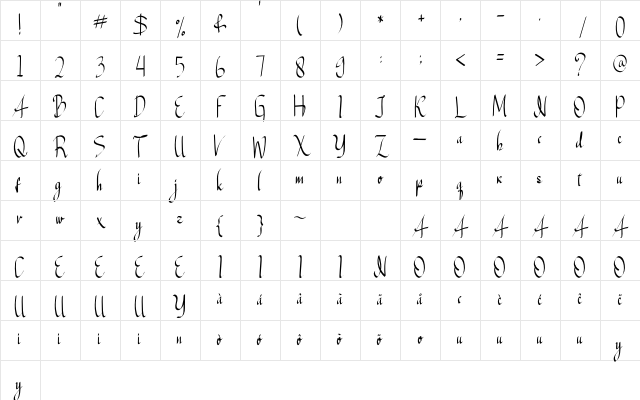
Complete The Oxcello Regular glyph index. Displaying only characters natively supported by The Oxcello Regular font.
The Oxcello is a composed and adaptable typeface that performs quietly and consistently across a wide range of design contexts.